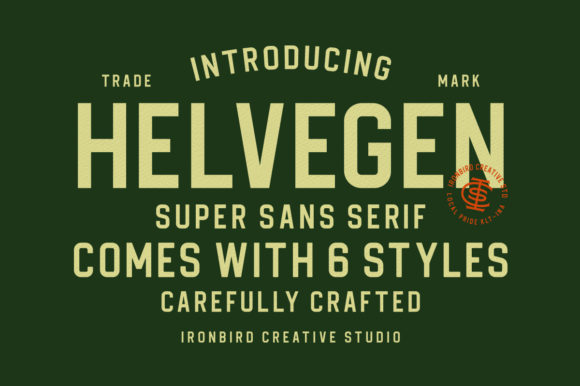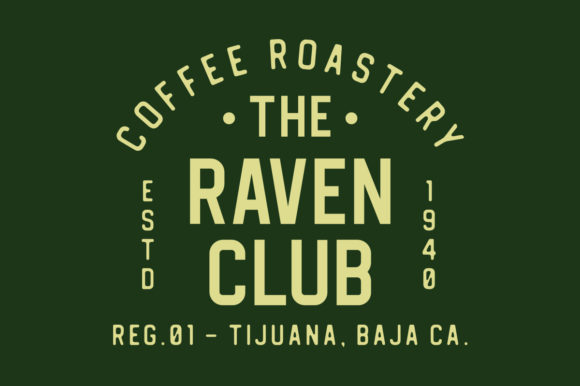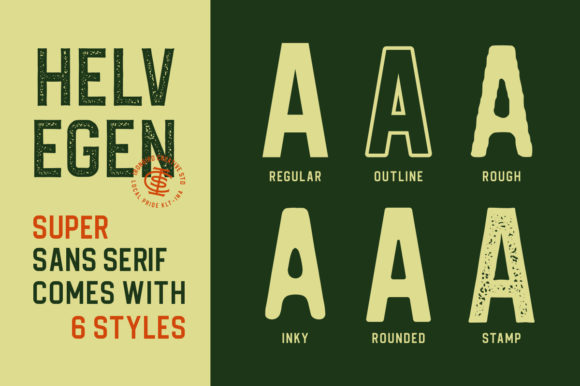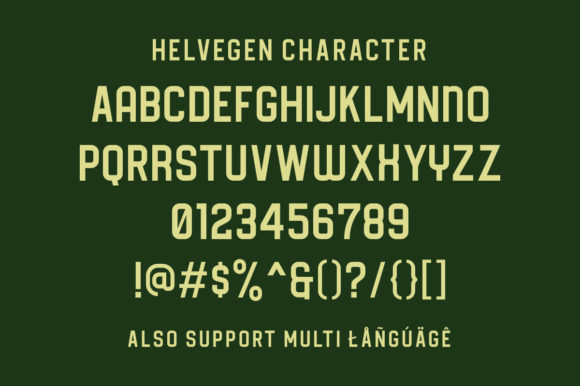
Helvegen Font
About the Helvegen Font
Unleash your creativity with Helvegen Font, a versatile font perfect for a wide range of applications. Carefully Crafted, Helvegen is a bold vintage-themed sans serif font that comes in 6 incredible versions. Get inspired by this beautiful and unique tyoeface!
Helvegen’s bold vintage style makes it ideal for headlines, logos, and short impactful text in posters or branding materials. Its strong character shines in packaging design, particularly for products emphasizing heritage or a retro aesthetic. However, its weight and condensed forms make it less suitable for body text or UI elements requiring high readability in extended passages.
Consider pairing Helvegen with a clean, geometric sans-serif like Futura for a modern contrast, or a classic serif like Garamond for a more traditional feel. A script font with a vintage vibe, such as Playfair Display, could also create a stylish and balanced pairing, depending on the desired overall mood.
Helvegen projects a confident, retro-inspired personality. Its boldness conveys strength and authority, while its vintage styling adds a layer of authenticity and nostalgia. This makes it an excellent choice for brands seeking to communicate heritage, craftsmanship, or a timeless appeal.
Helvegen Font Usage Examples
Helvegen Font Example